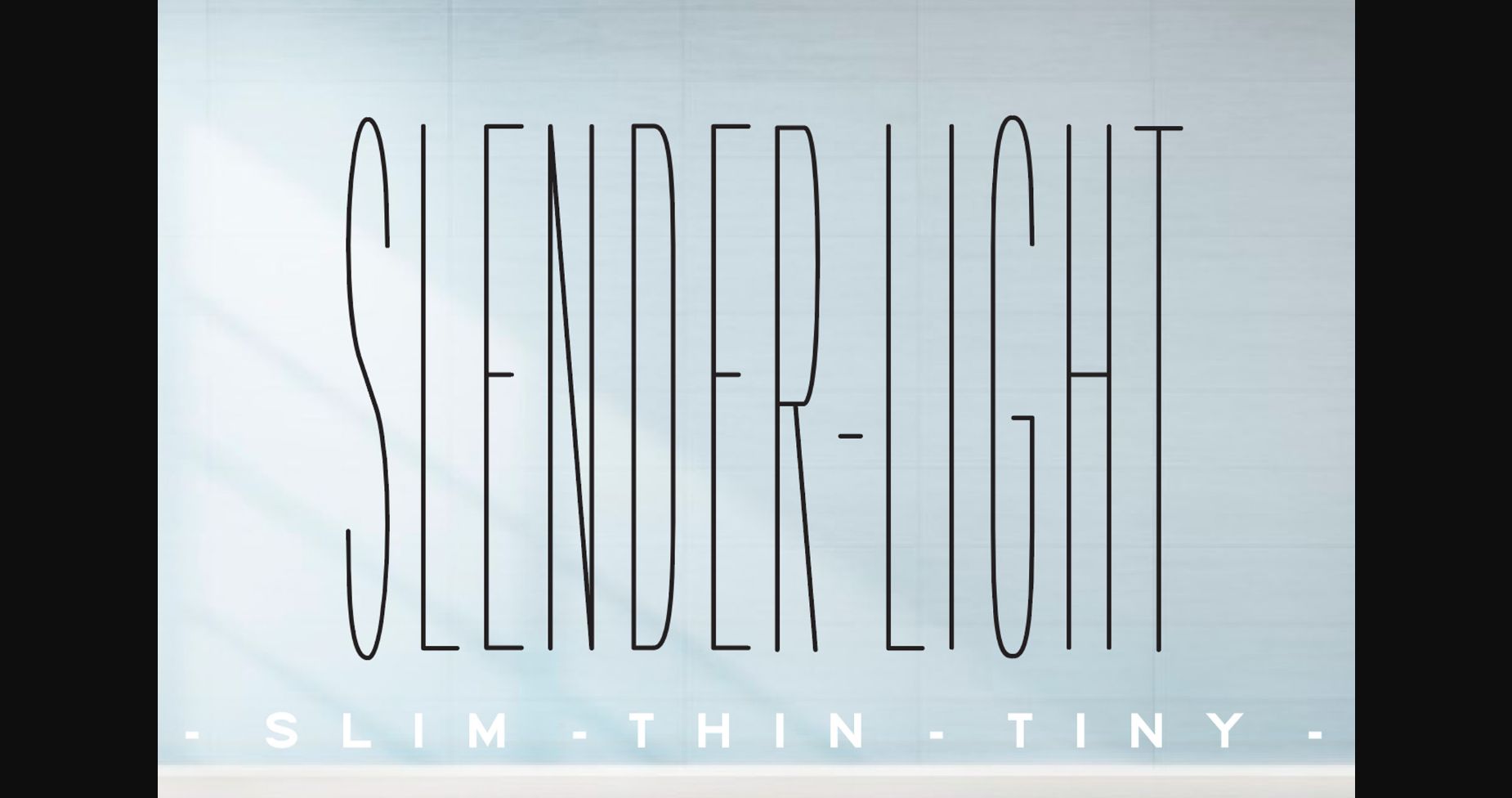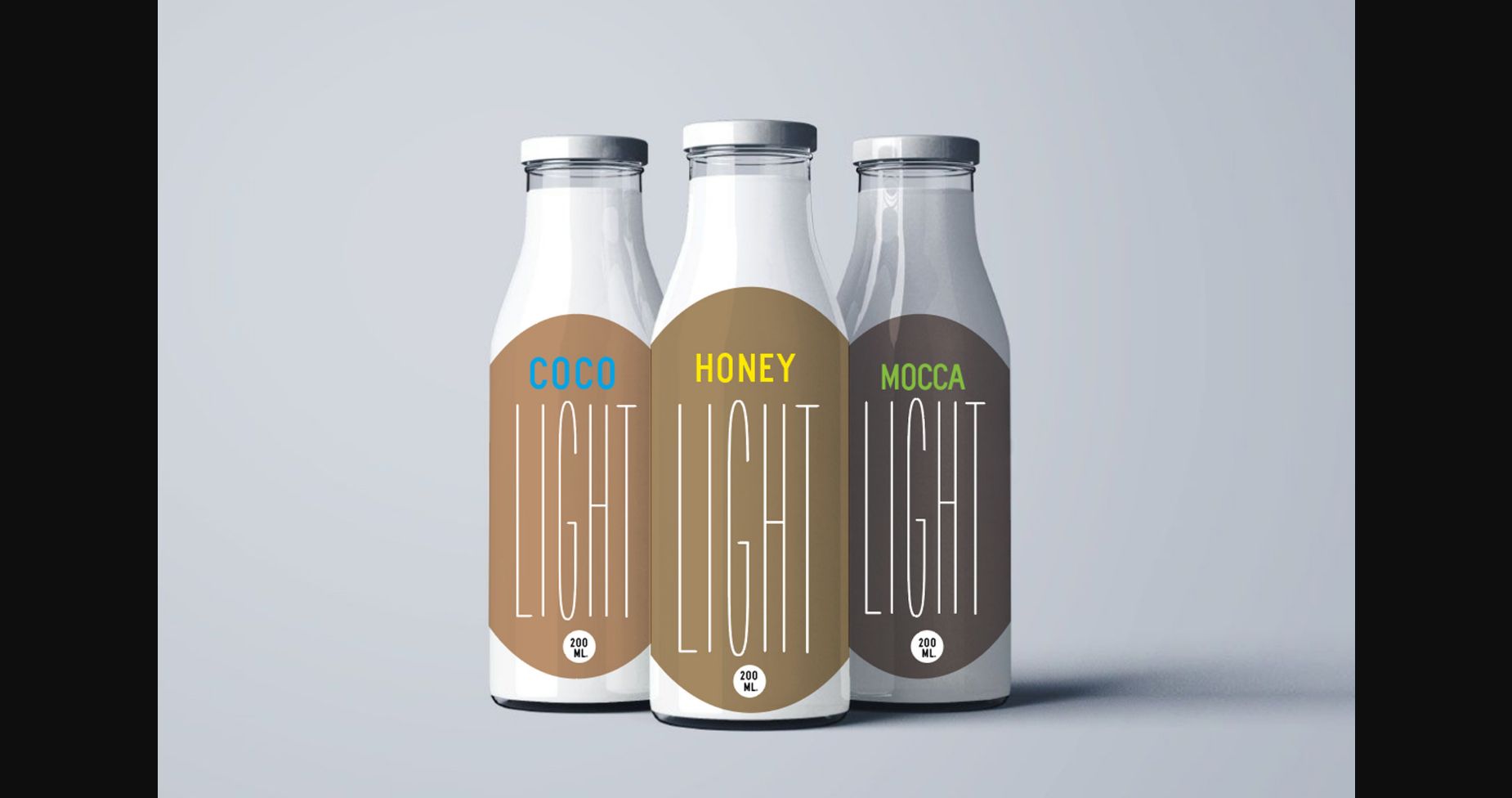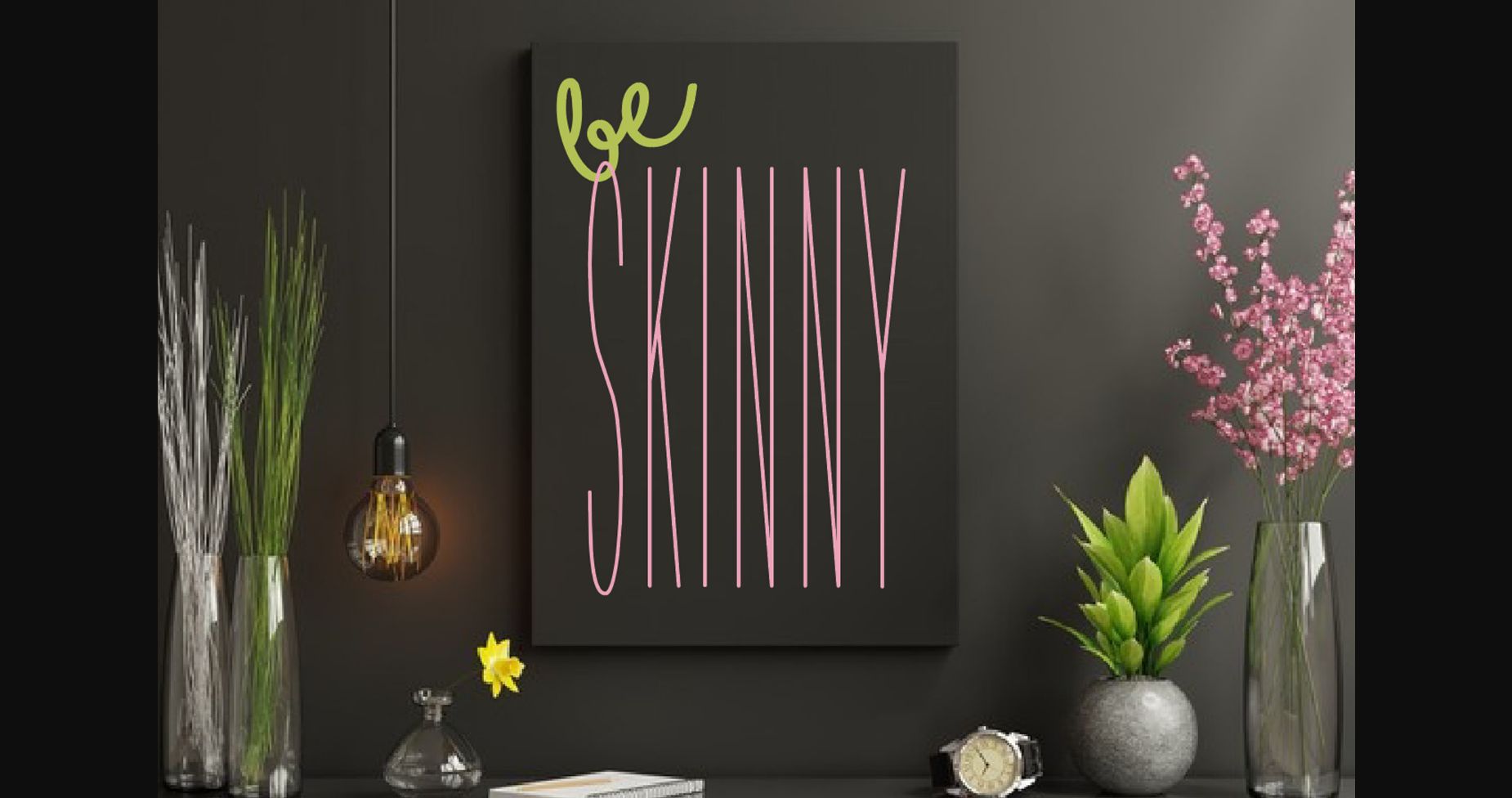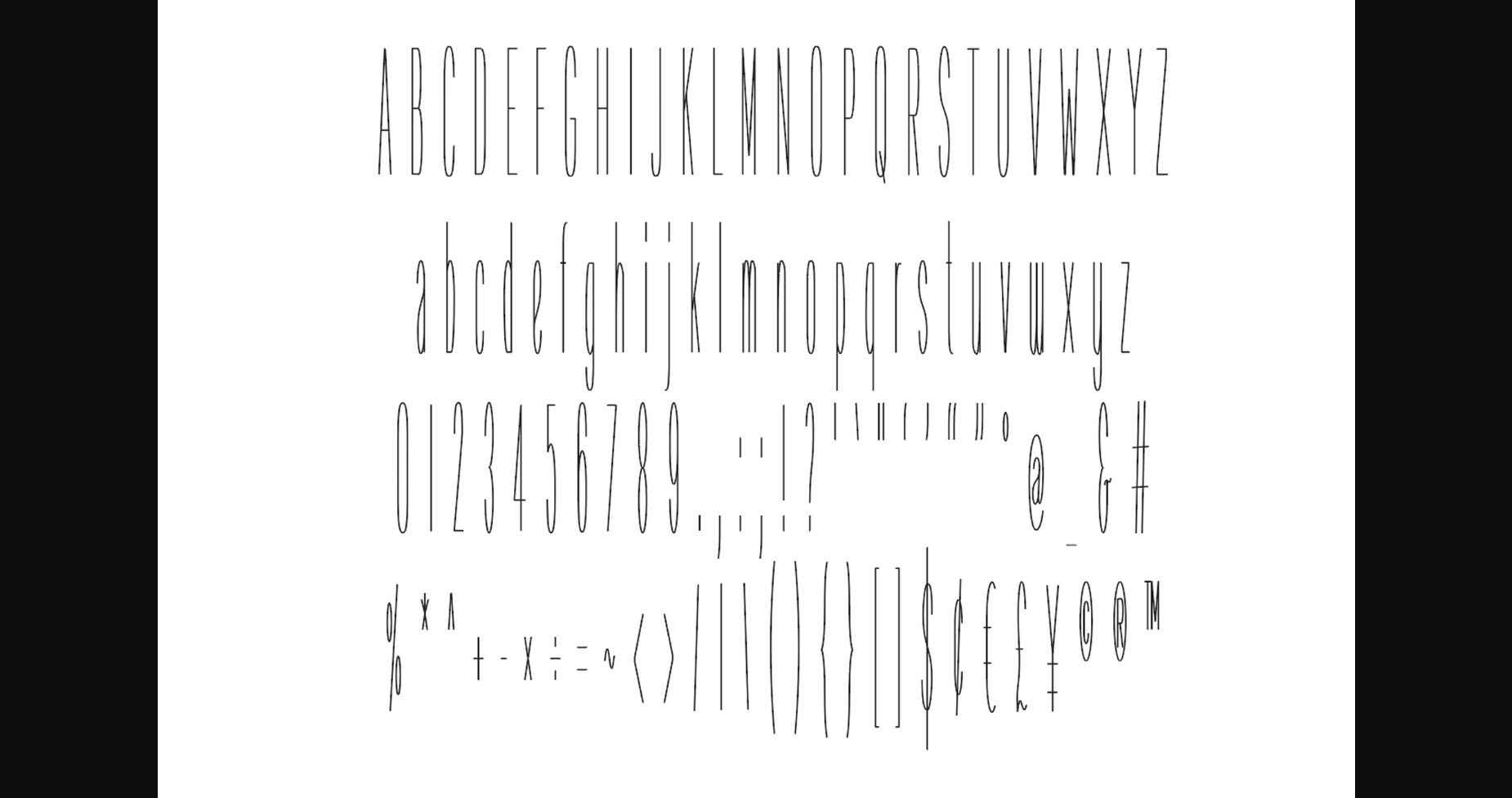
HomeSans Serif FontsSlender Light Font Sans Serif Fonts Slender Light Font FacebookXPinterestWhatsApp 1 of 7 ... Slender Light Font Poster 2... Slender Light Font Poster 3... Slender Light Font Poster 4... Slender Light Font Poster 5... Slender Light Font Poster 6... Slender Light Font Poster 7... About Slender Light Font Slender Light is an extra thin and tall sans serif font. It can easily be matched to an incredibly large set of projects, so add it to your creative ideas and notice how it makes them stand out! DOWNLOAD NOW People also explored Heartines Font Ngallengka Script Font Sandy Font Redgar Slab Disforia Inersia Font Francisse Font Wafle Mango Font The Chuns Font Monalisa Font 327 0 TagsSlender Light Font Previous articleBetawi FontNext articleAdriana Font LEAVE A REPLY Cancel reply Comment: Please enter your comment! Name:* Please enter your name here Email:* You have entered an incorrect email address! Please enter your email address here Website: Save my name, email, and website in this browser for the next time I comment. Personal Use Free Oatmeal Personal Use Free Read more about this font New System Personal Use Free Read more about this font Street Cred Personal Use Free Read more about this font Helsinki Personal Use Free Read more about this font BLOG Free Fonts Risk: Why Free Fonts Can Be Dangerous for Designers Free Fonts Risk: Why Free Fonts Can Be Dangerous for Designers Using free fonts is a common practice in web and graphic design. However, the... Using Fonts in Digital Marketing: Tips to Strengthen Your Brand Identity Exploring Font Trends Where to Buy American Fonts Online in 2024